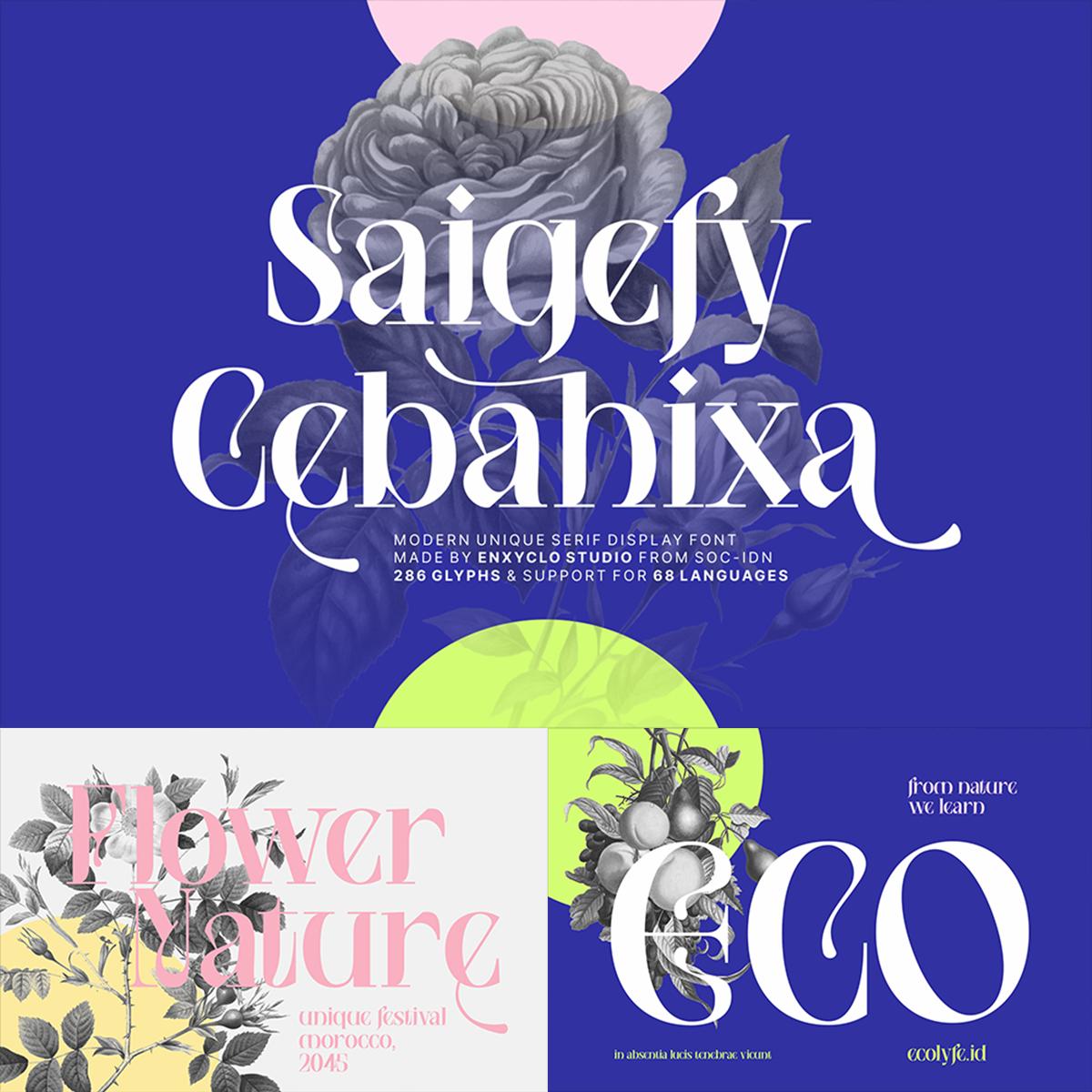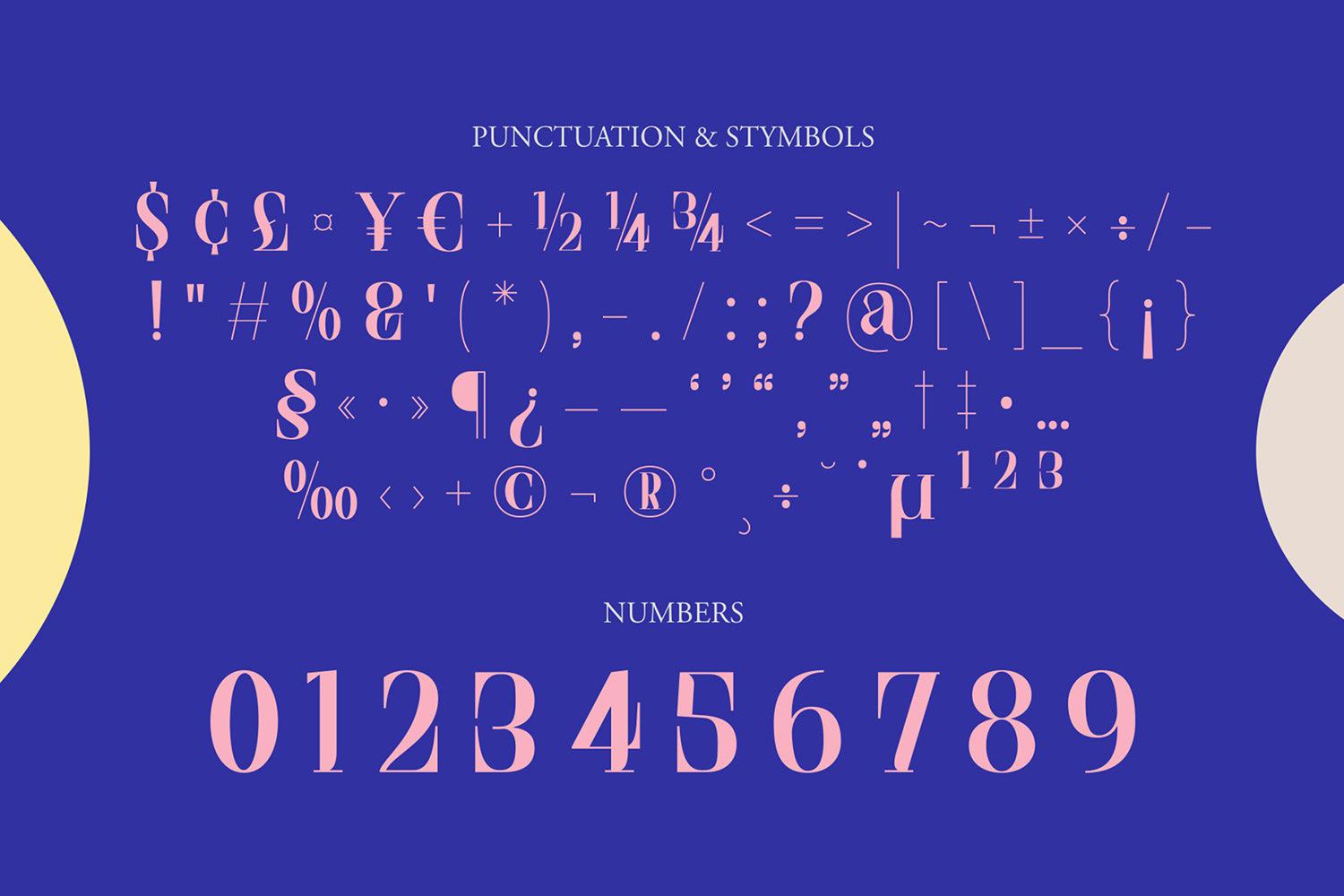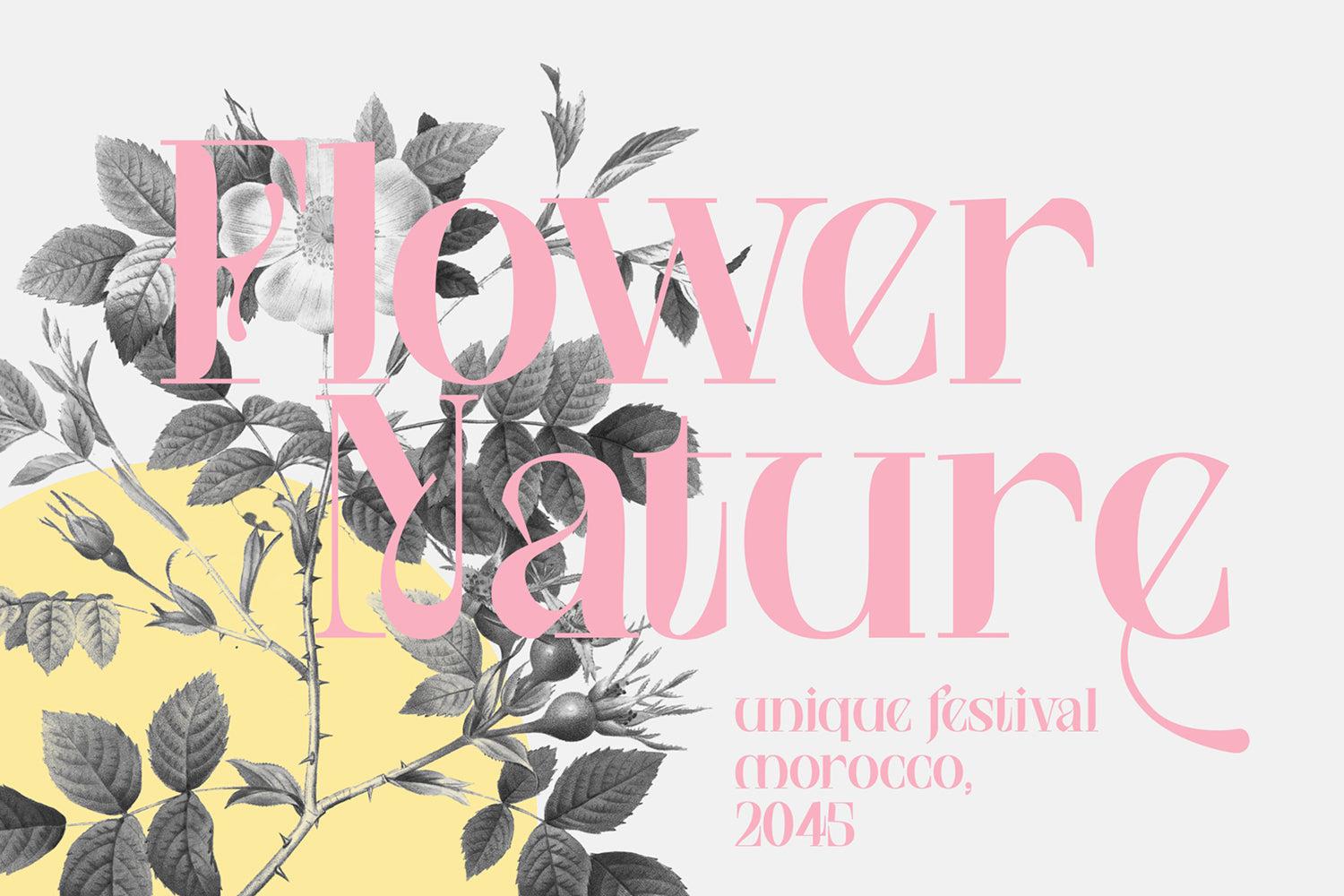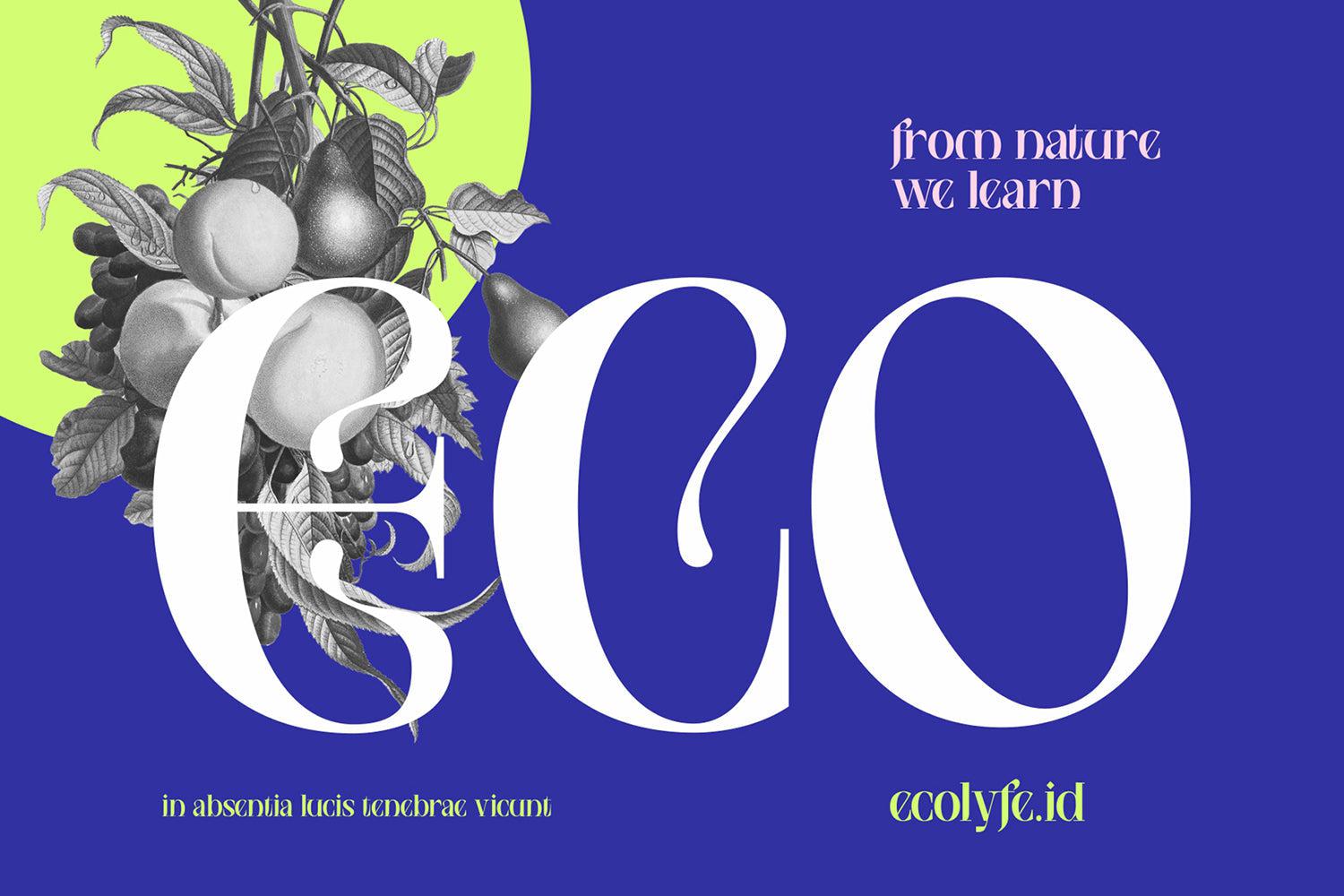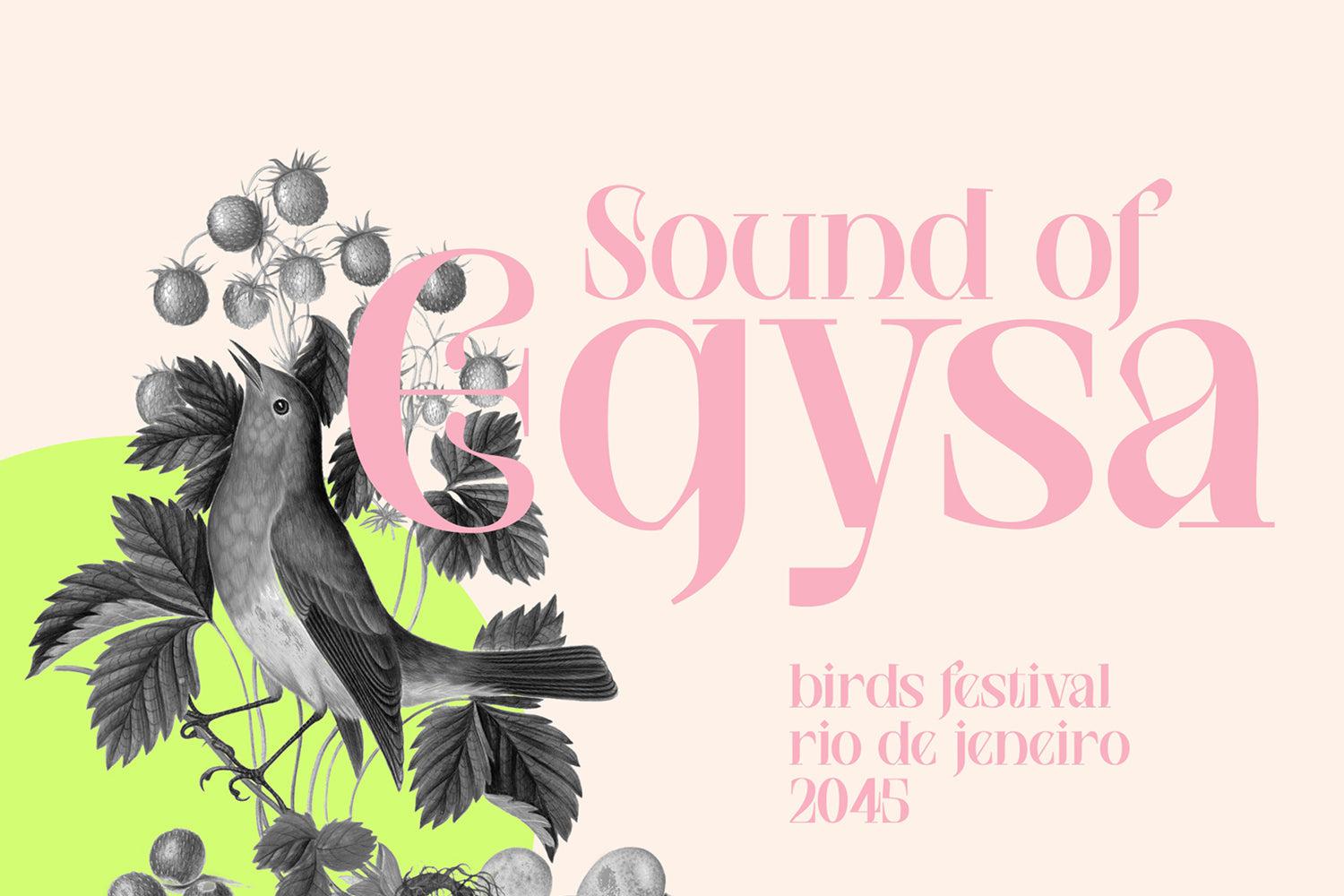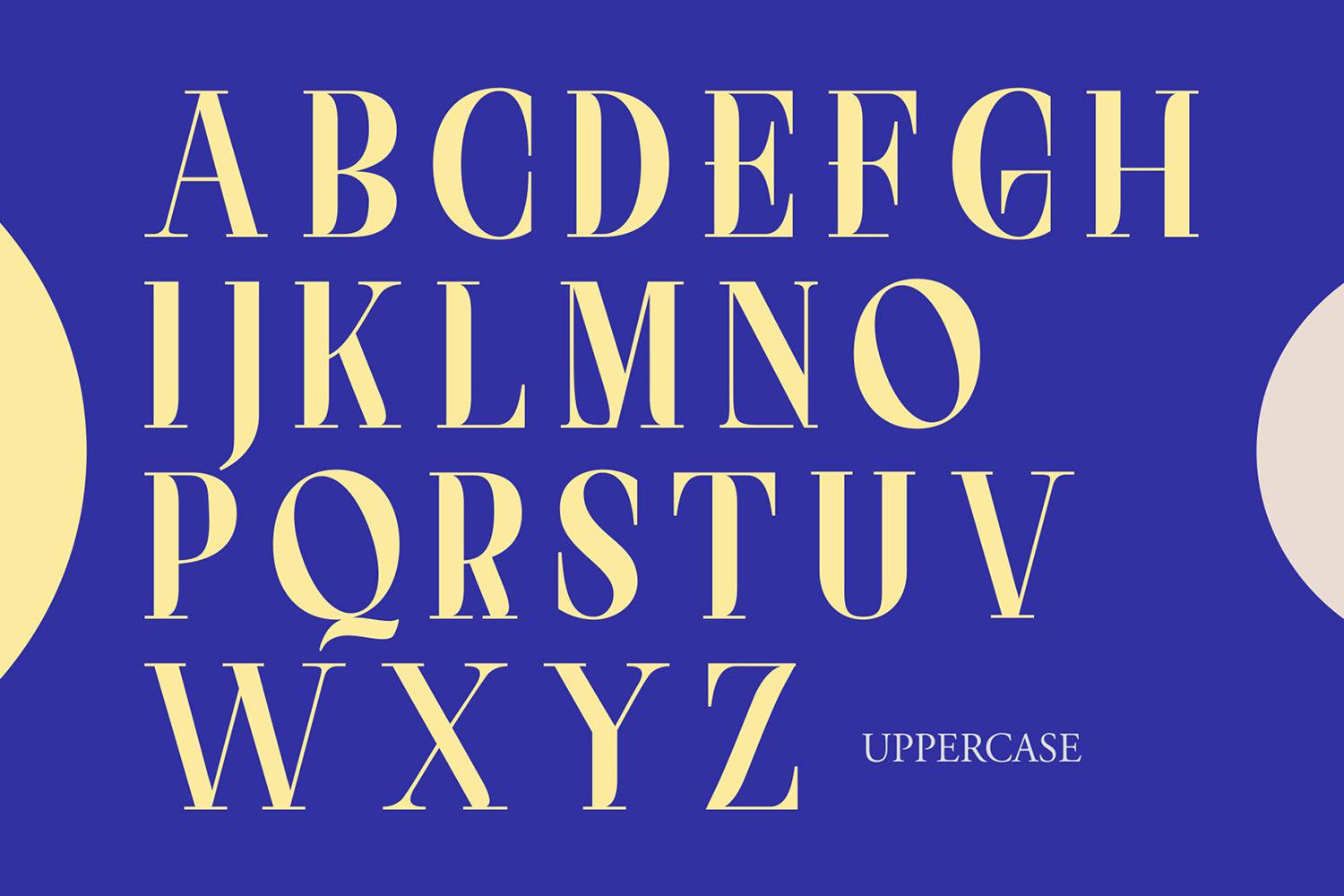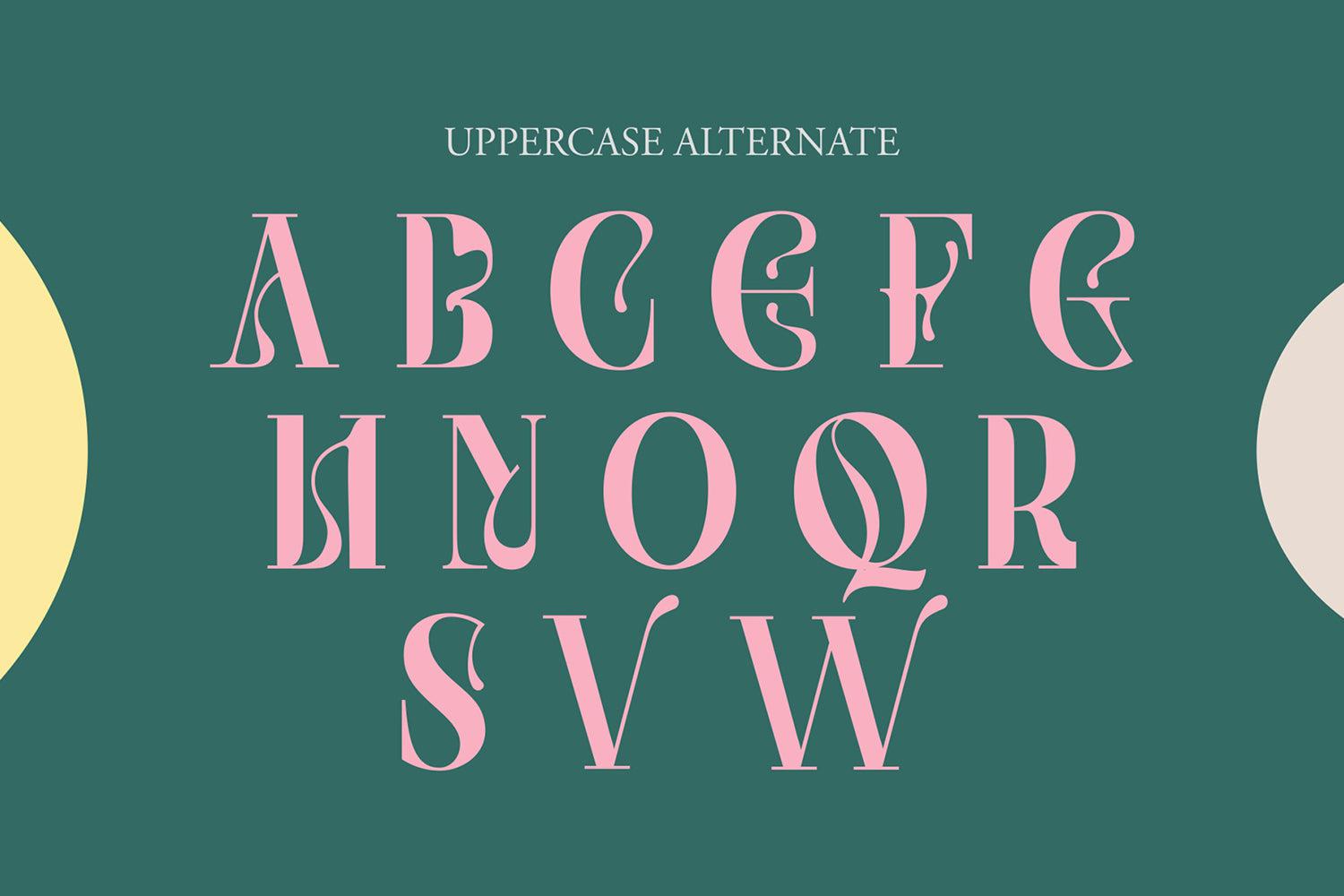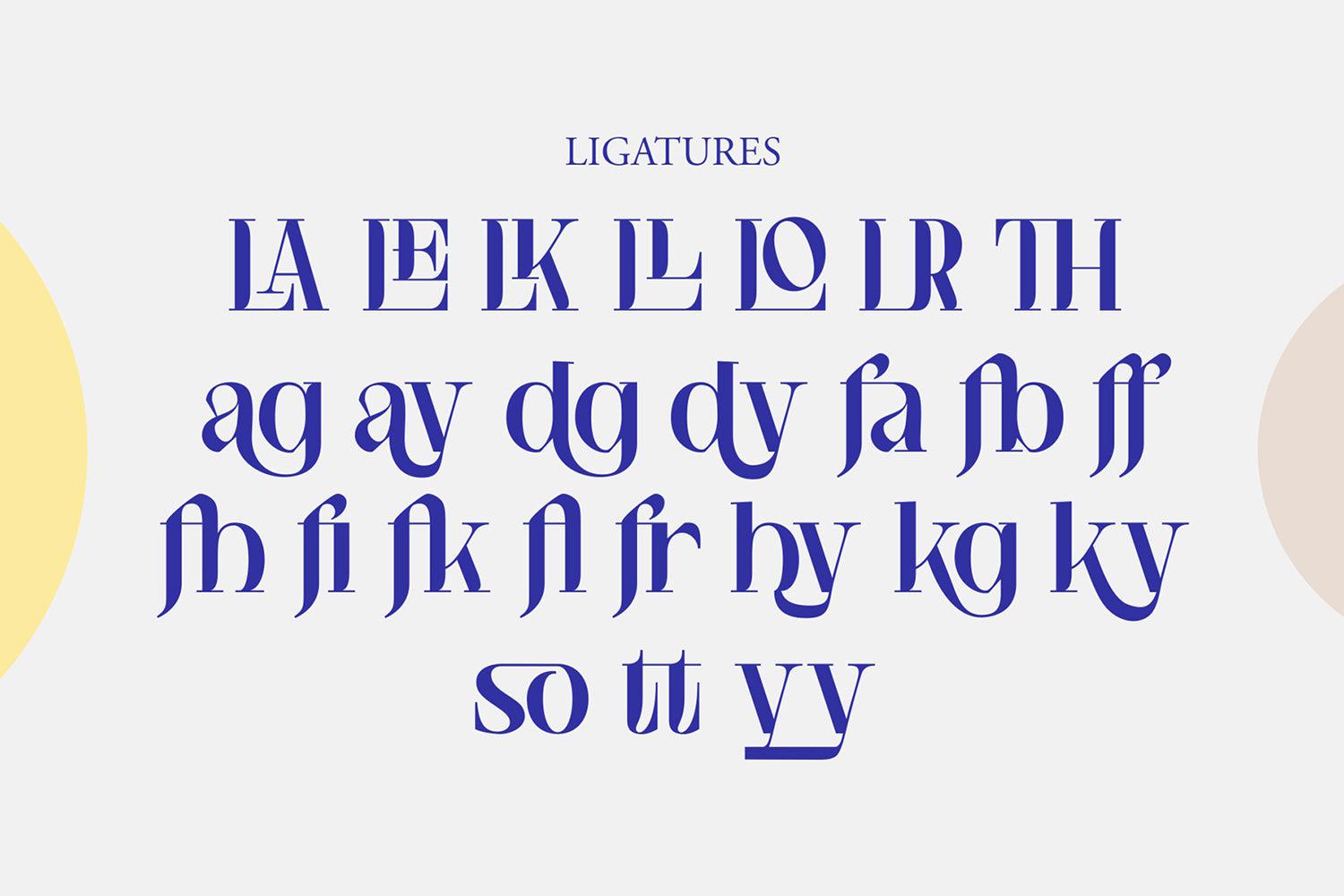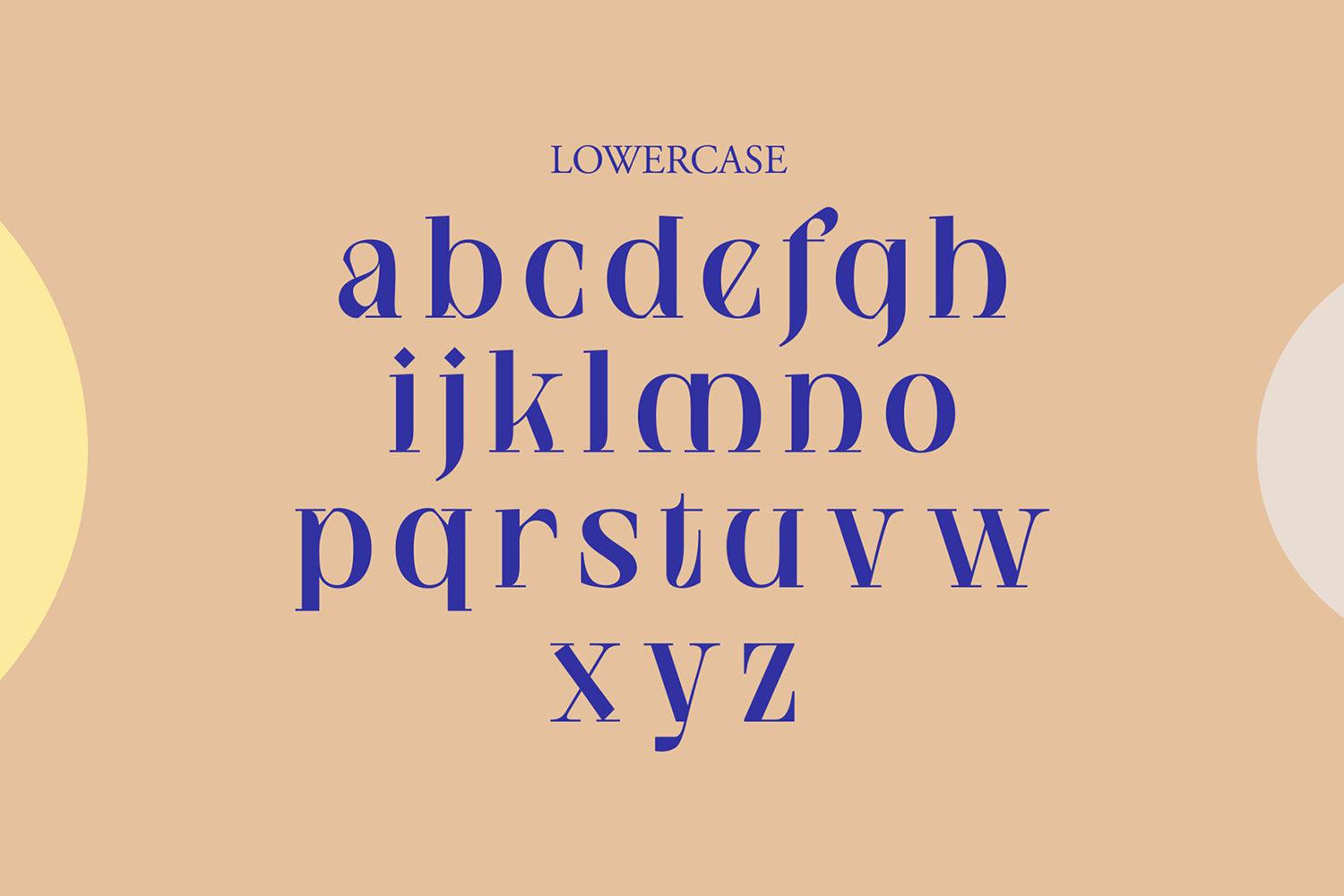
NCL Saigefy Cebahixa - Modern Serif Font
SAIGEFY CEBAHIXA — Experimental Serif
NCL SAIGEFY CEBAHIXA is a modern unique serif display font. Masterfully designed to become a true favorite, this font has the potential to bring each of your creative ideas to the highest level! It was purposely crafted to be used in large point sizes, although it doesn’t lose its magic in small point sizes. It is perfect for wedding, headline, billboard, magazines, website, titles, poster, branding, and logos. No matter the topic, this font will be an incredible asset to your fonts’ library, as it has the potential to elevate any creation. With this beautiful font, absolutely you can make your project stand out from the rest.
• Contains 286 Glyphs
• Numeral, Punctuation & Symbols
• Unique Stylistic Set
• Ligature
The NCL Saigefy Cebahixa is a modern, unique serif display font that includes 286 glyphs, uppercase and lowercase letters, numerals, punctuation, and symbols. It comes in True Type Font (TTF), Open Type Font (OTF), and Web Open Format (WOFF1 & WOFF2), and supports 68 languages.
Ideal for modern and vintage-inspired graphic design projects. Perfect for headlines, branding, posters, and wedding invitations, ensuring a striking visual impact that elevates any creative endeavor.